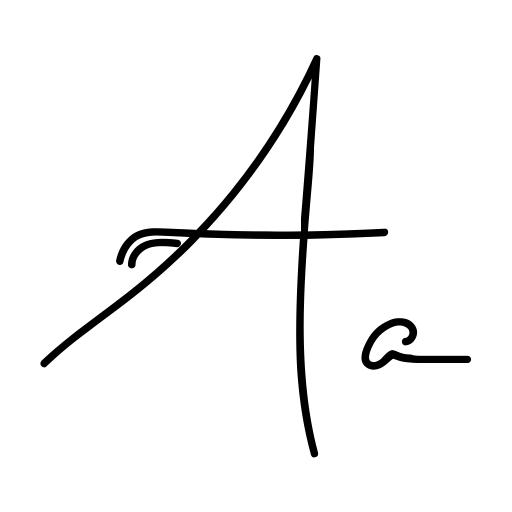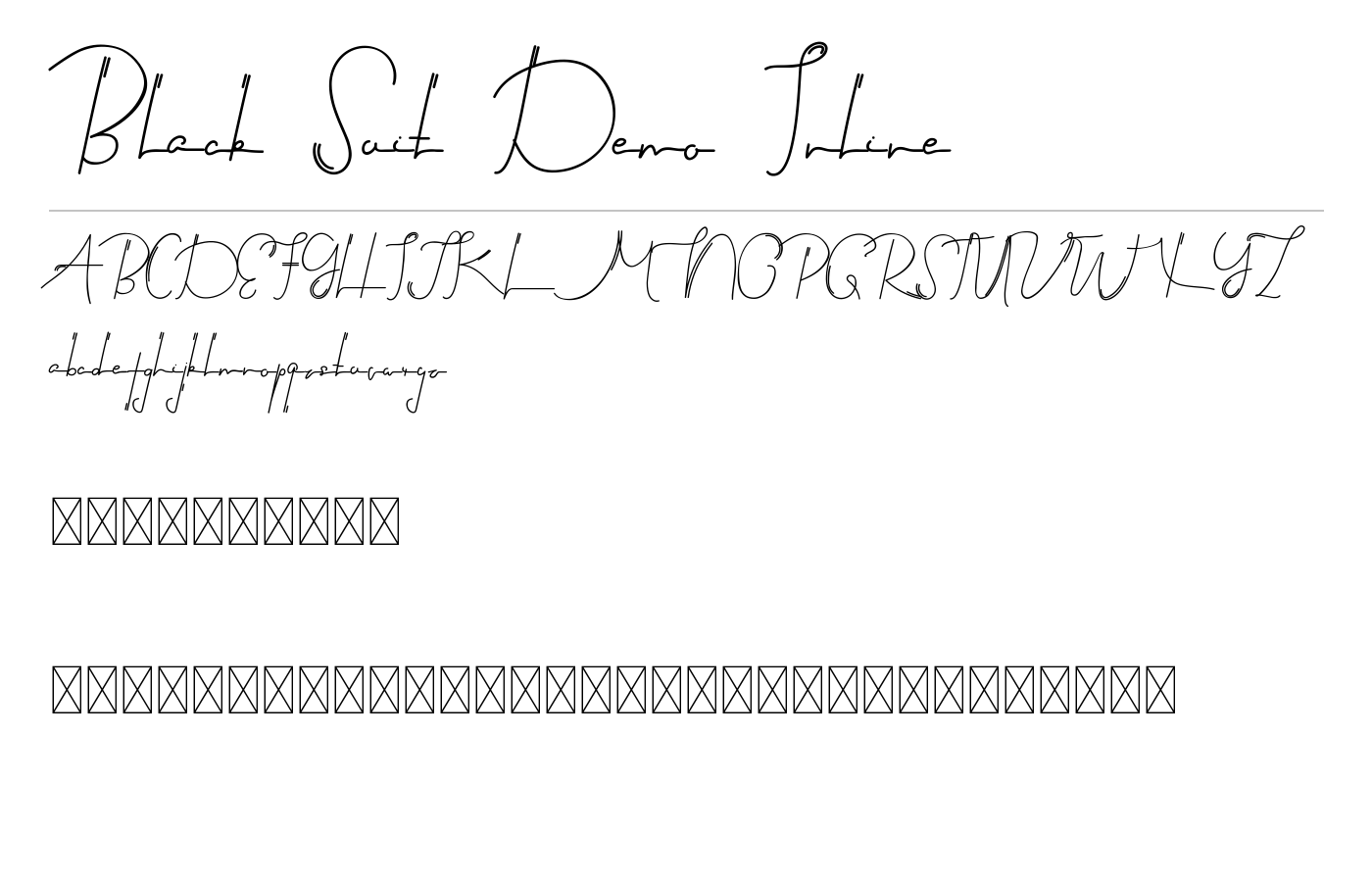
Black Suit Demo is a delicate, thin script font featuring elegant, elongated letterforms with a hand-drawn, whimsical style. Its light weight and slender strokes create an airy, stylish impression, making it ideal for sophisticated branding, invitations, and artistic headlines where a refined yet playful touch is desired.
Black Suit Demo Font
About Black Suit Demo Font